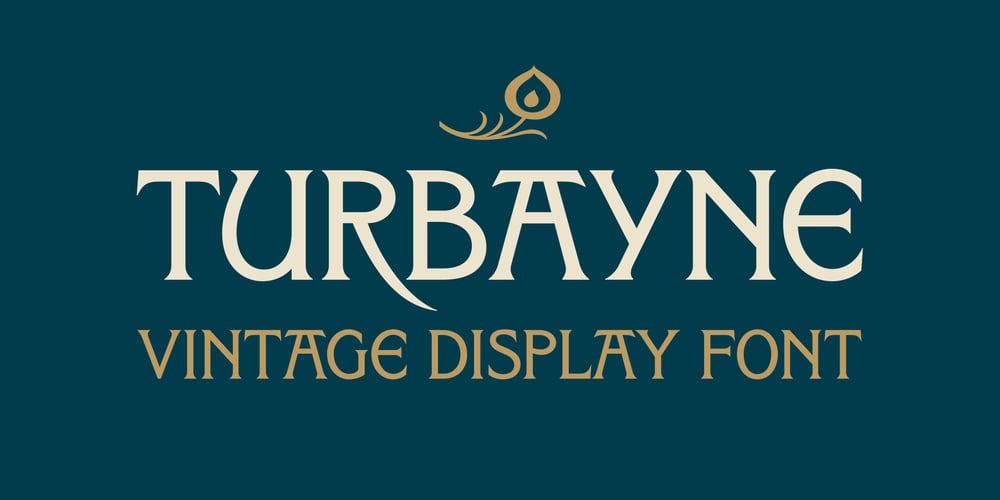
Turbayne Font Family was designed by Ben Noe and published by Ben Noe Studio. Turbayne contains 1 styles and family package options. Turbayne is an all caps serif display revival of book cover titling originally drawn by A.A. Turbayne in 1896 London. Expanding upon the original drawings, Turbayne includes basic Latin, western and south eastern European language support, and includes opentype features such as ligatures, stylistic alternates, and even ornaments. Reflecting the refinement of the late Victorian era without being gaudy, it is perfect for designing headlines, labels, logotypes, posters, invitations, t-shirts and so much more.